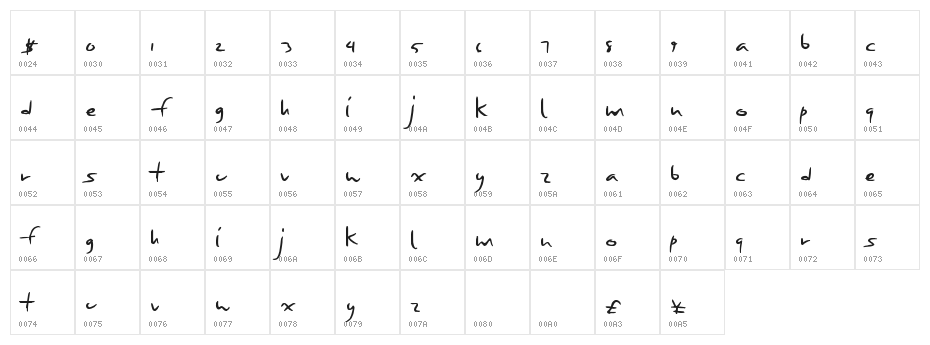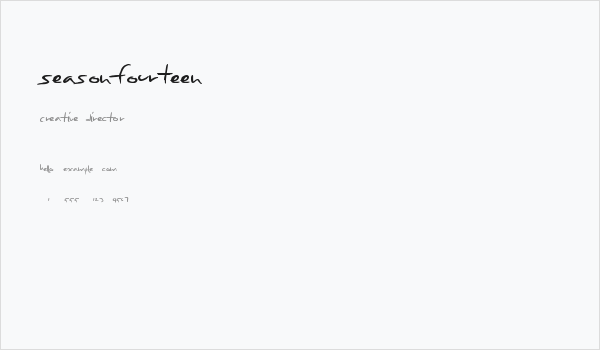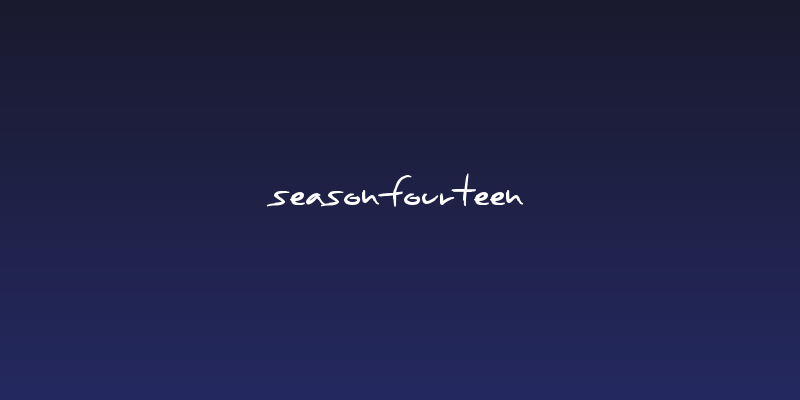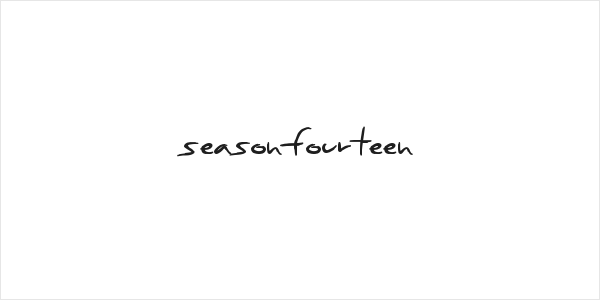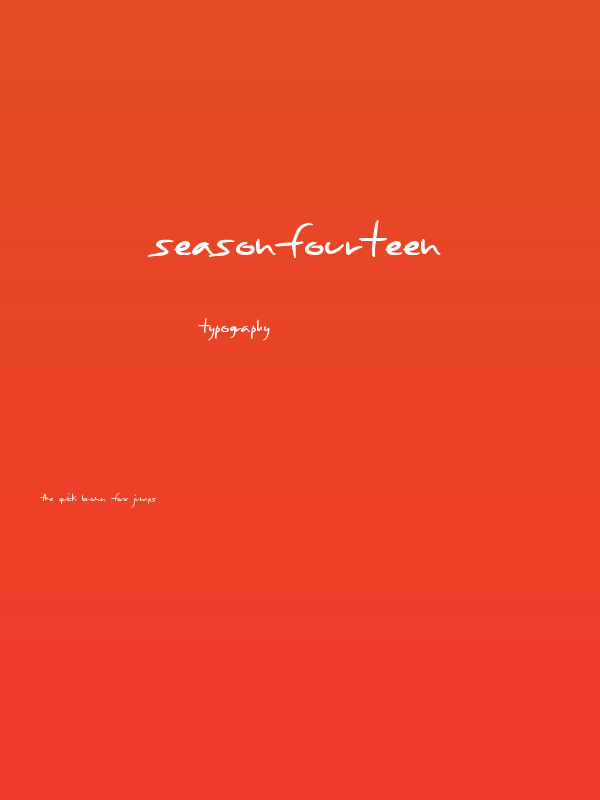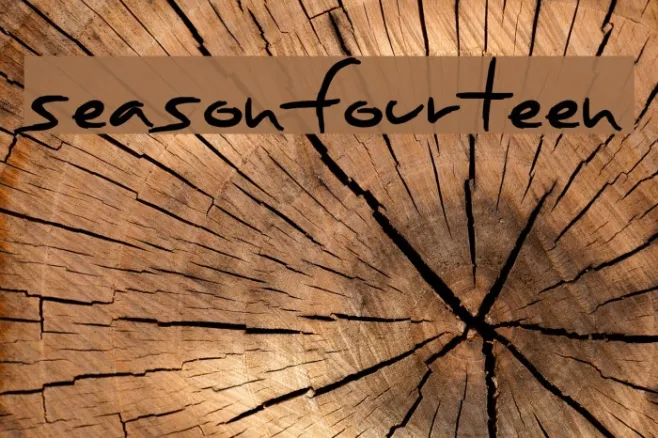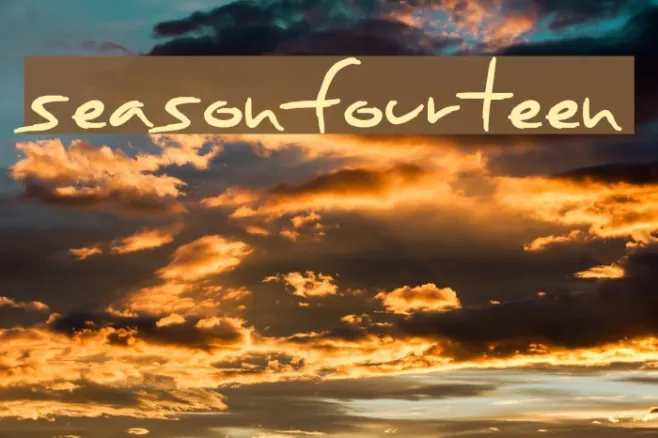
SeasonFourteen Font
SeasonFourteen Description
This font exudes a casual, handwritten style with a playful and informal character. The letters are slightly slanted, giving a dynamic and lively appearance. The strokes are uneven, adding to the handwritten feel, while maintaining legibility. The lowercase letters have a consistent height, and the spacing between characters is moderately tight, which enhances the cohesive look of the text. The numbers and special characters follow the same style, ensuring uniformity across all elements. This font is ideal for projects that require a personal touch or a relaxed, approachable aesthetic.